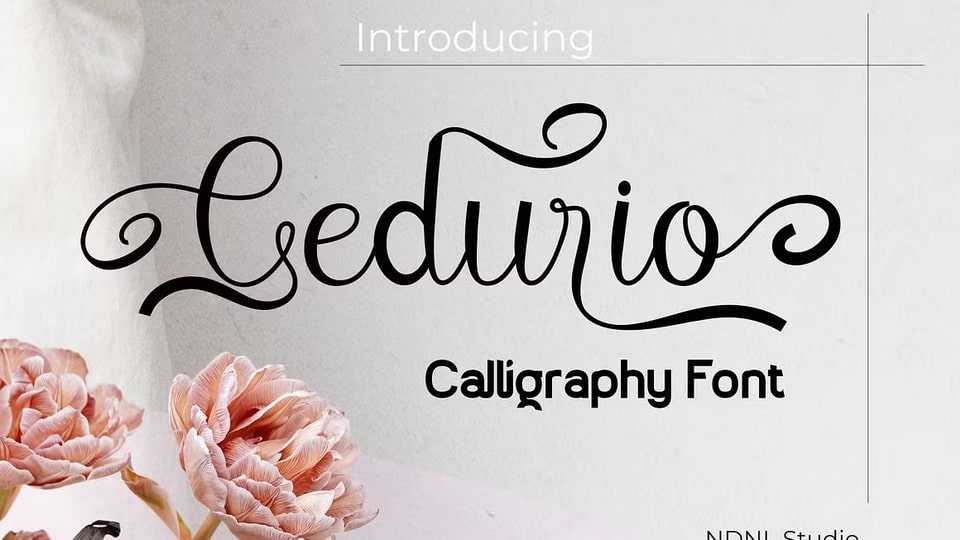
Download Cedurio font, an elegant and graceful calligraphy typeface designed with artistic swashes and decorative curves with its smooth strokes and stylish letterforms.
Designer: NDNL Studio